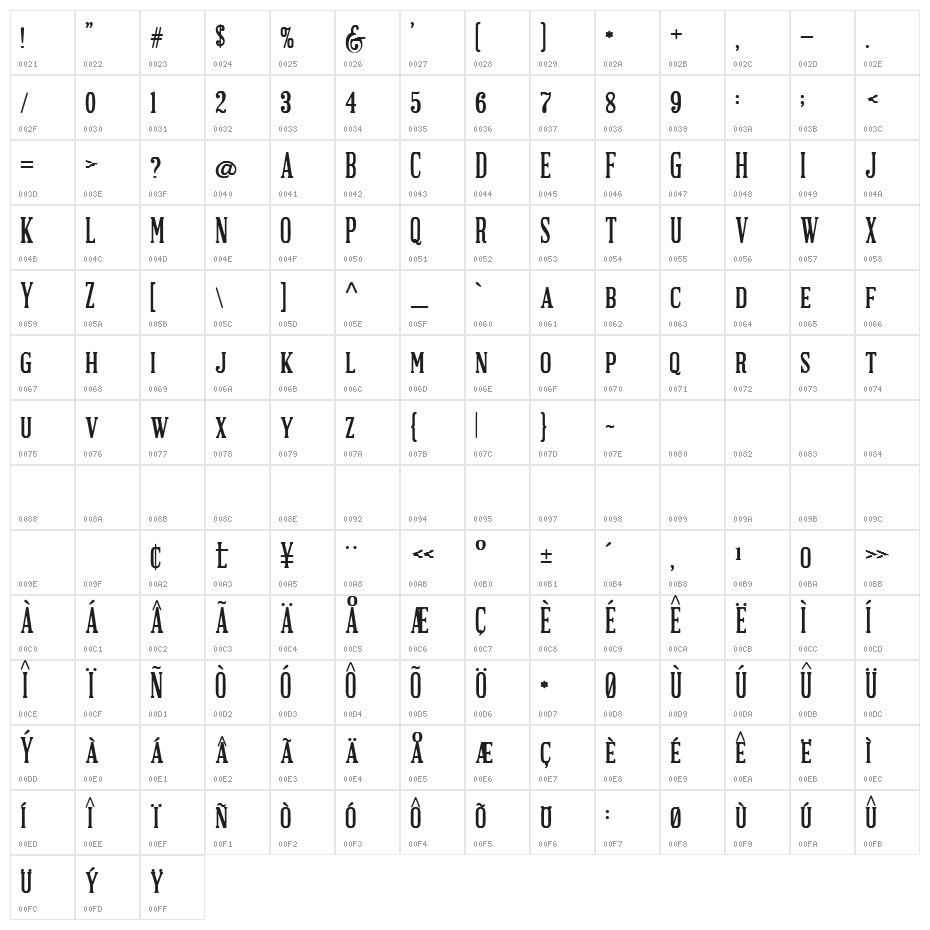
Brandals Font
Brandals Description
This font features a bold and impactful design with a strong presence. The letters are characterized by thick, uniform strokes that give it a robust and sturdy appearance. The serifs are prominent and add a touch of classic elegance to the overall style. The numbers and special characters maintain the same boldness, ensuring consistency throughout. This font is well-suited for projects that require a strong visual impact, such as headlines or branding materials. Its classic yet bold style makes it versatile for various design applications.